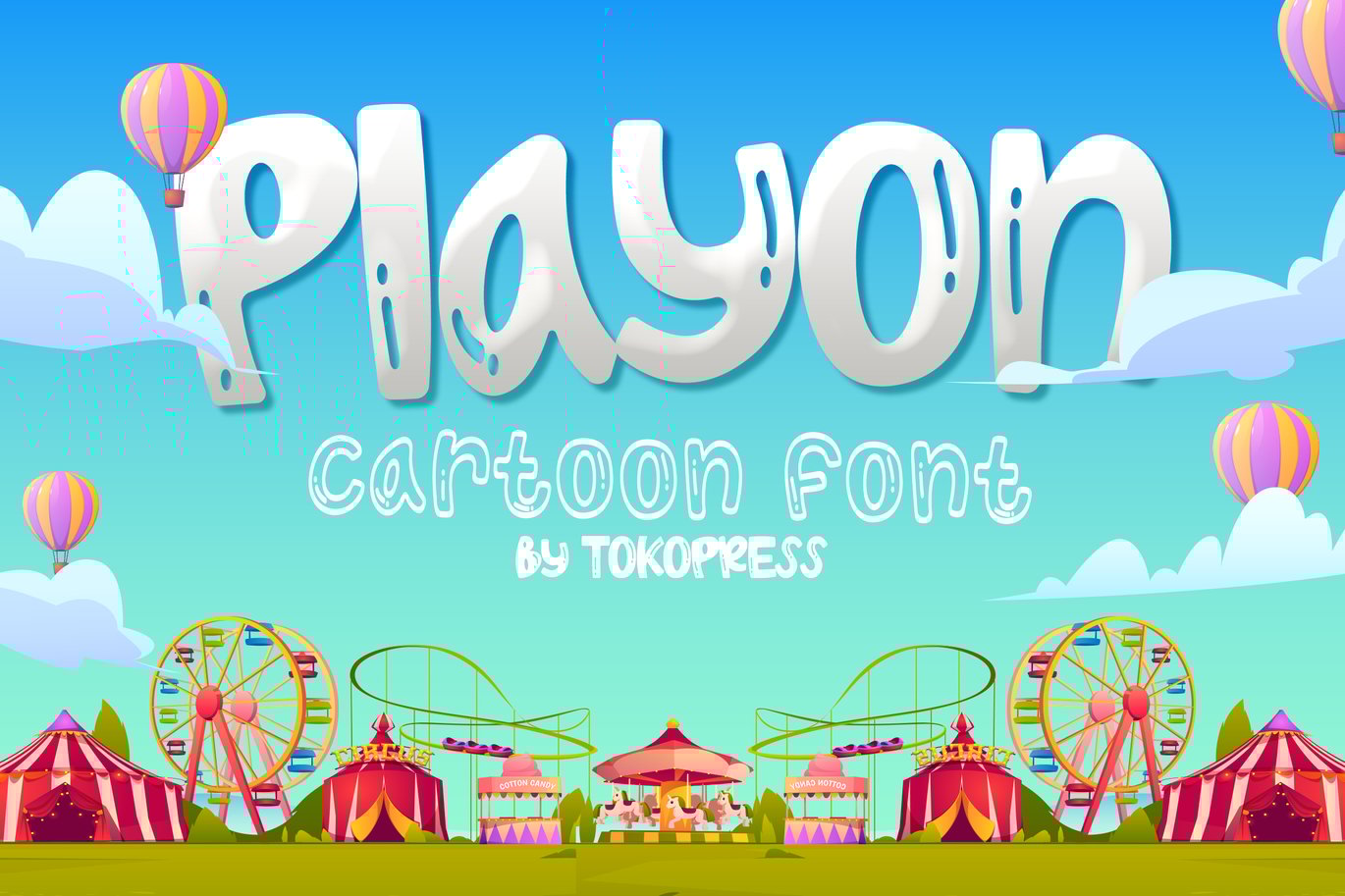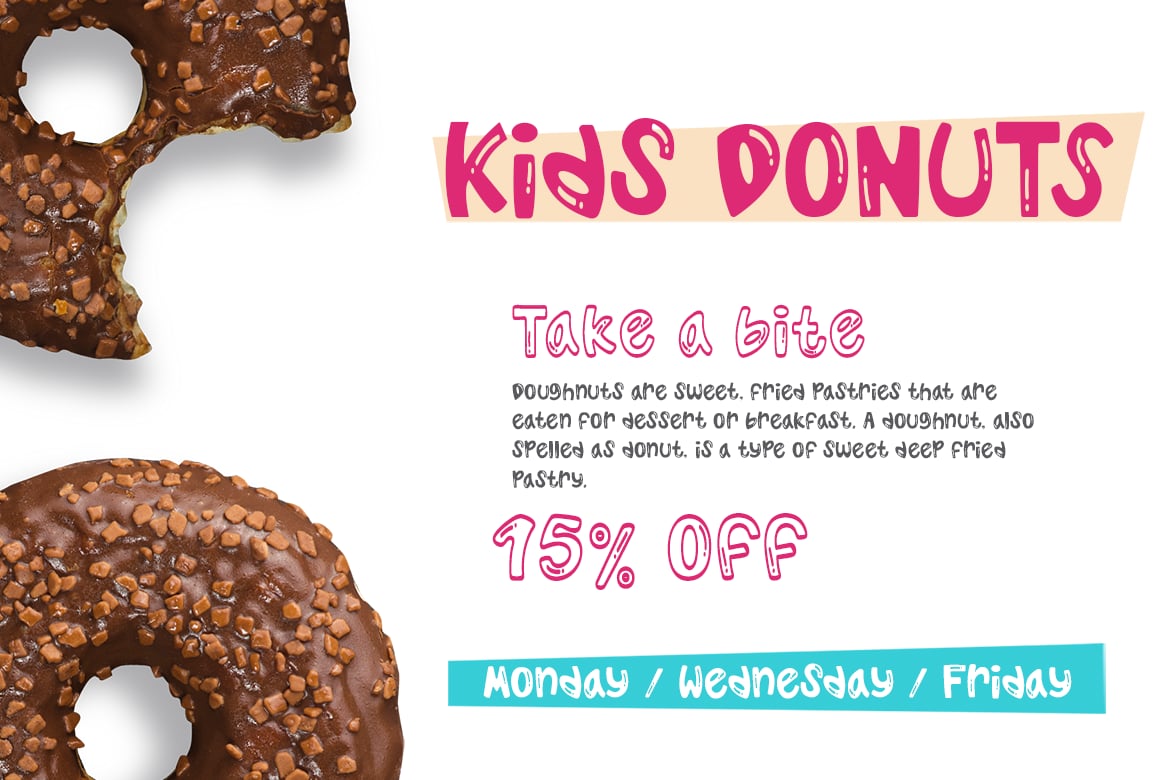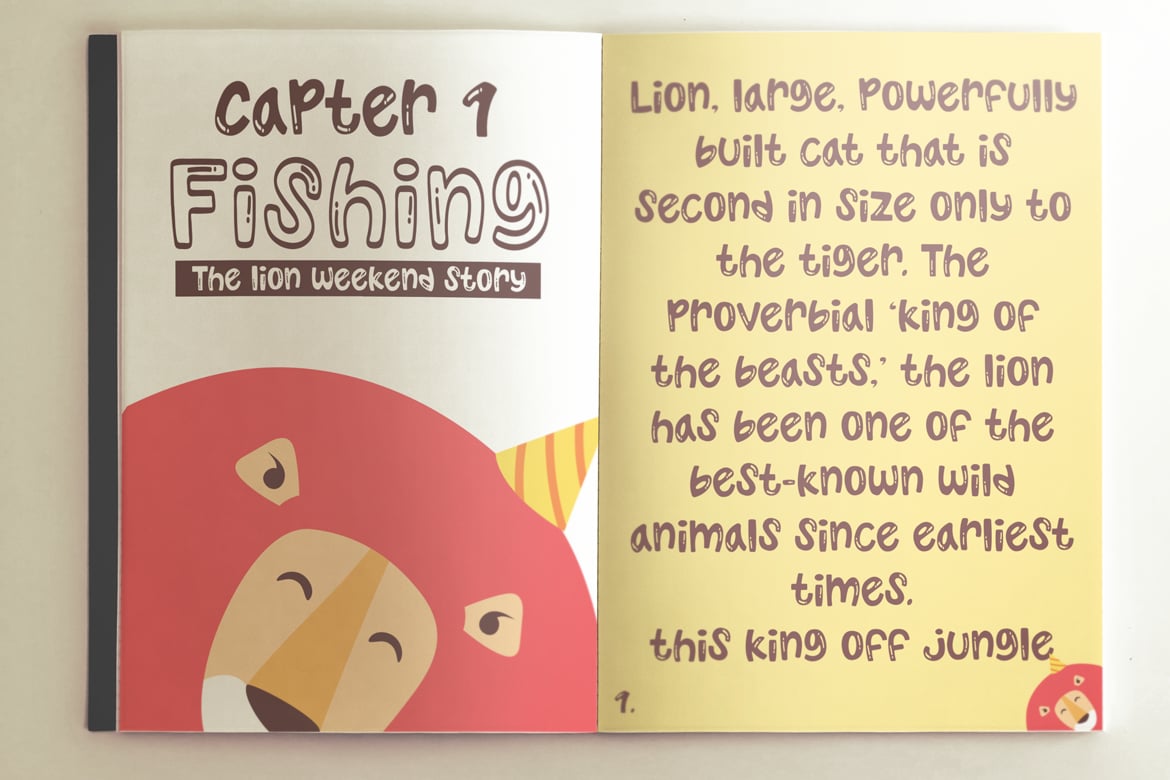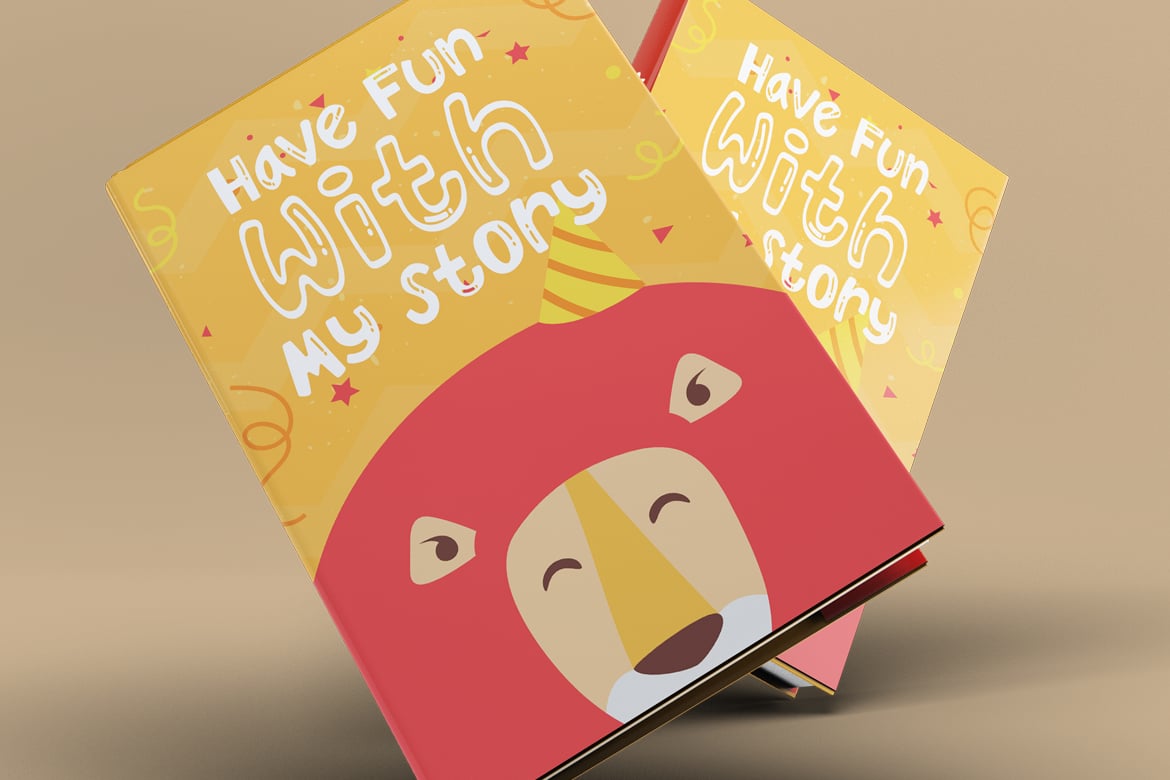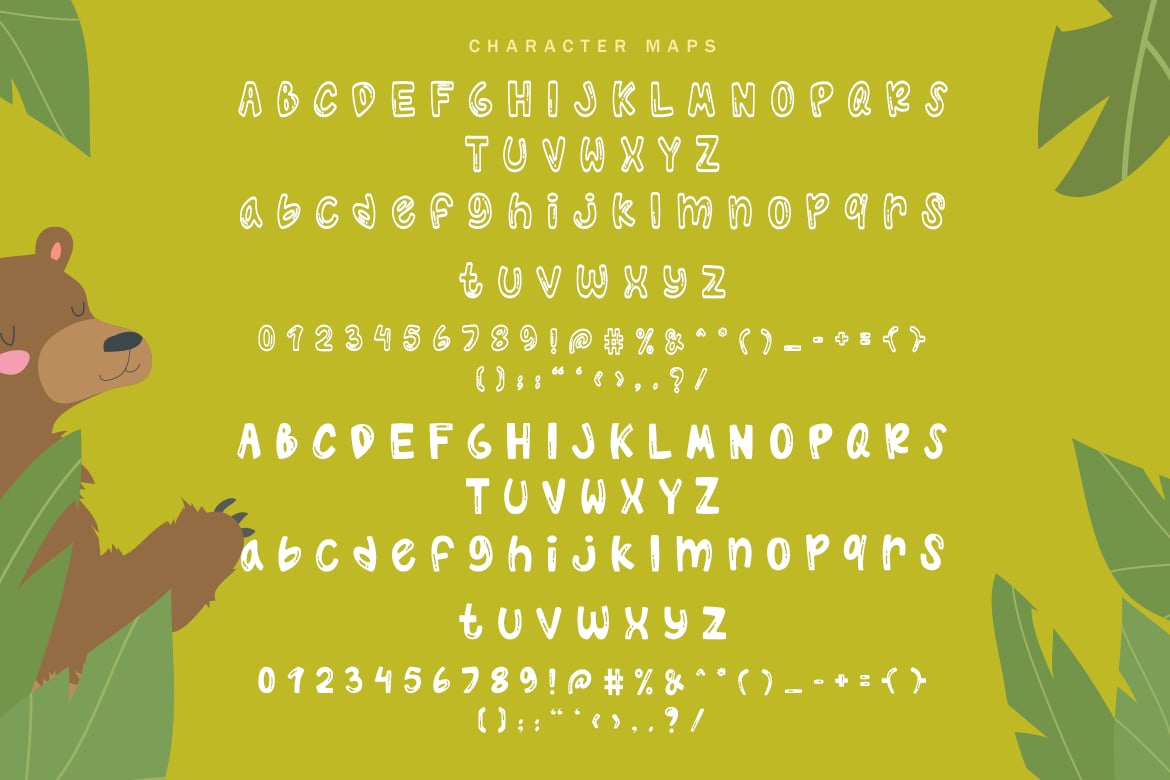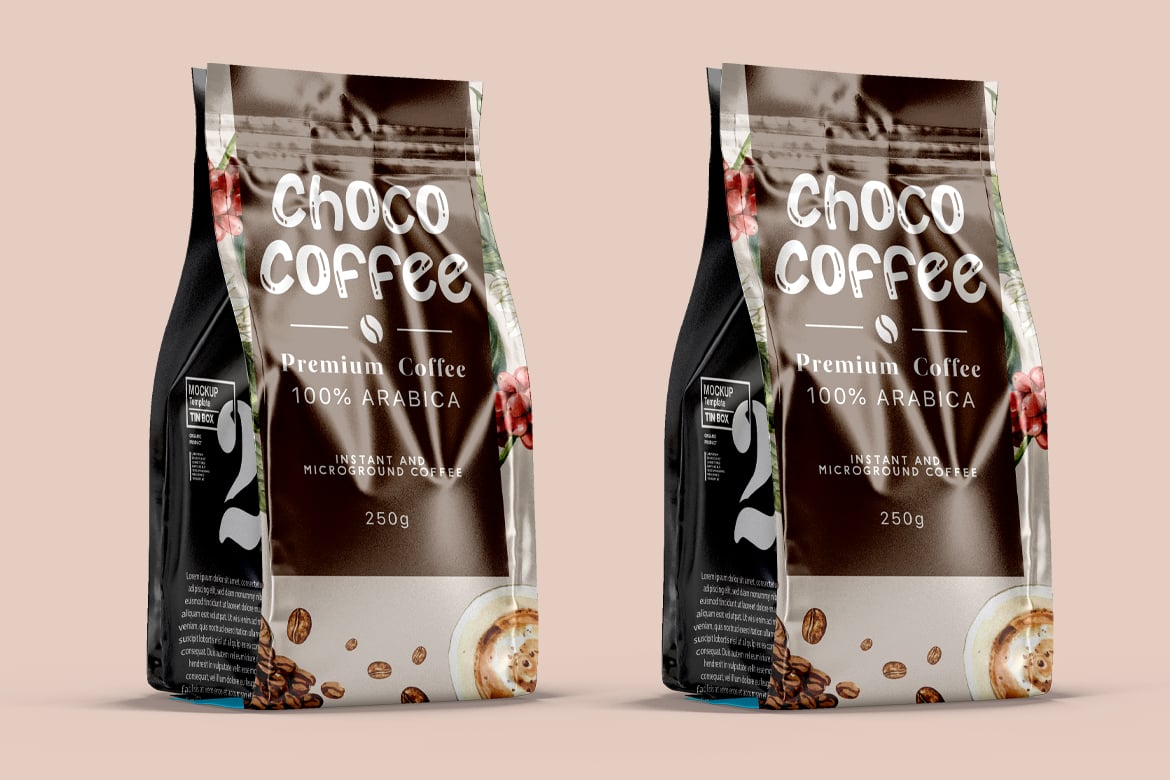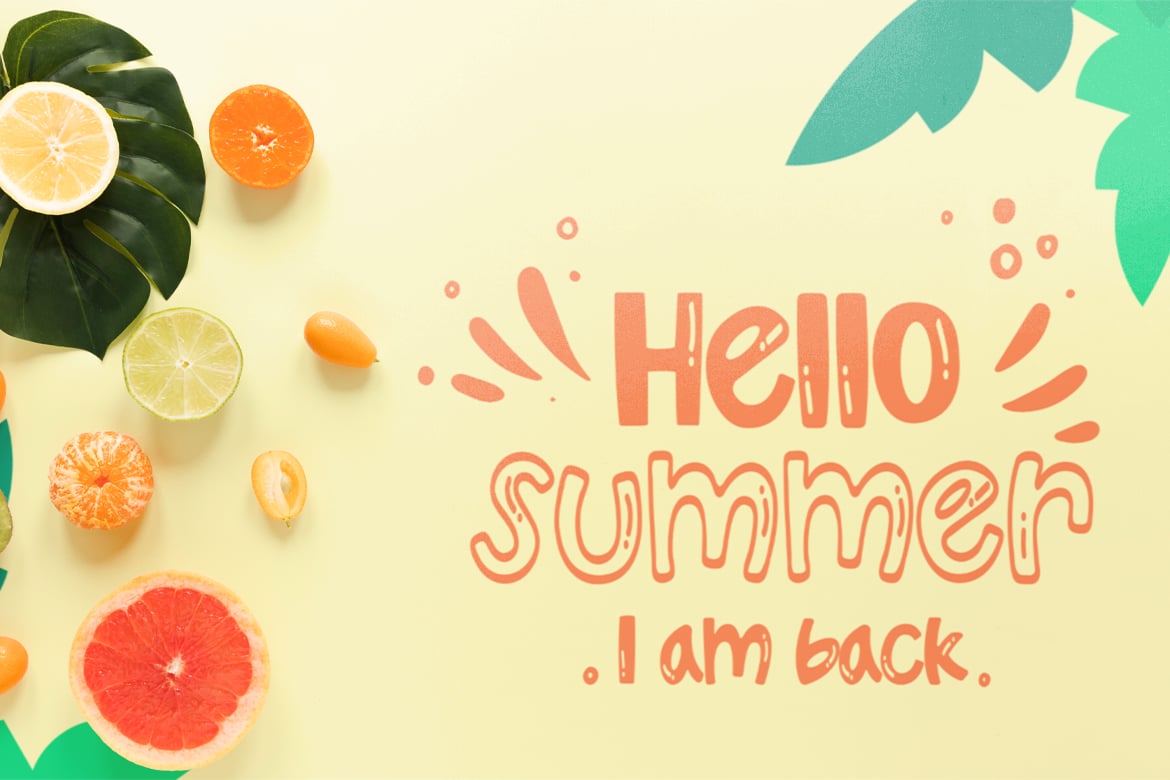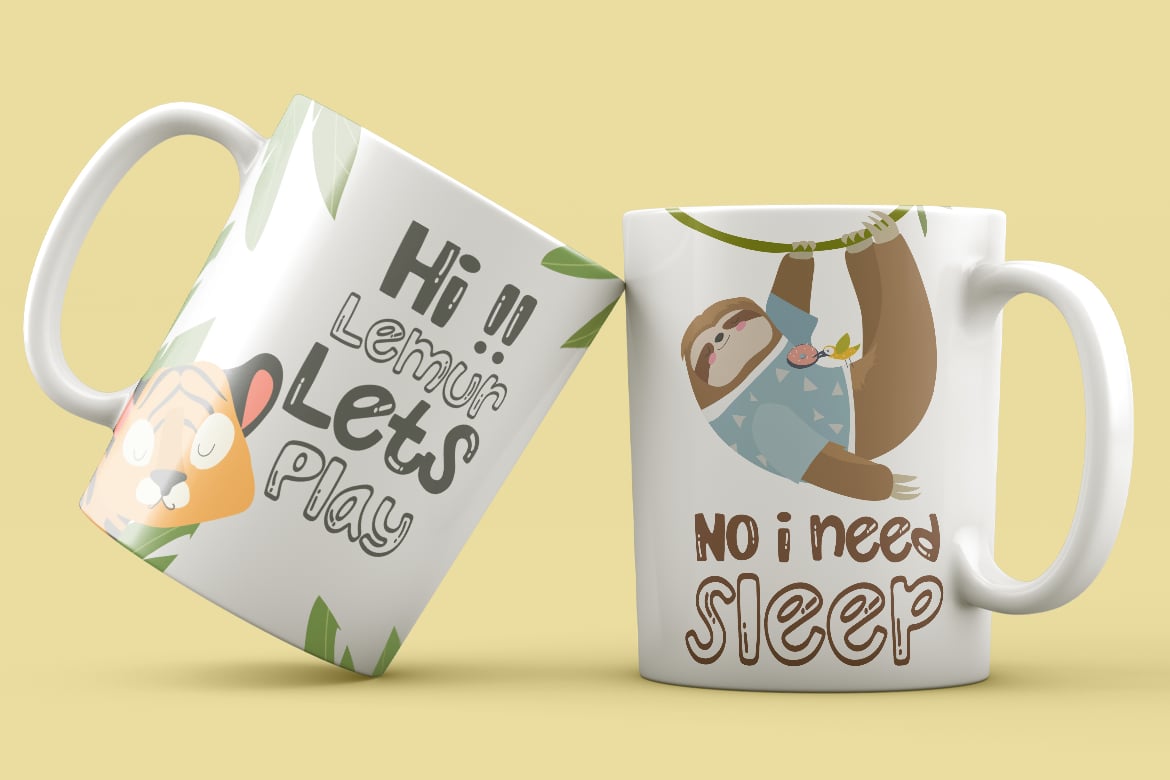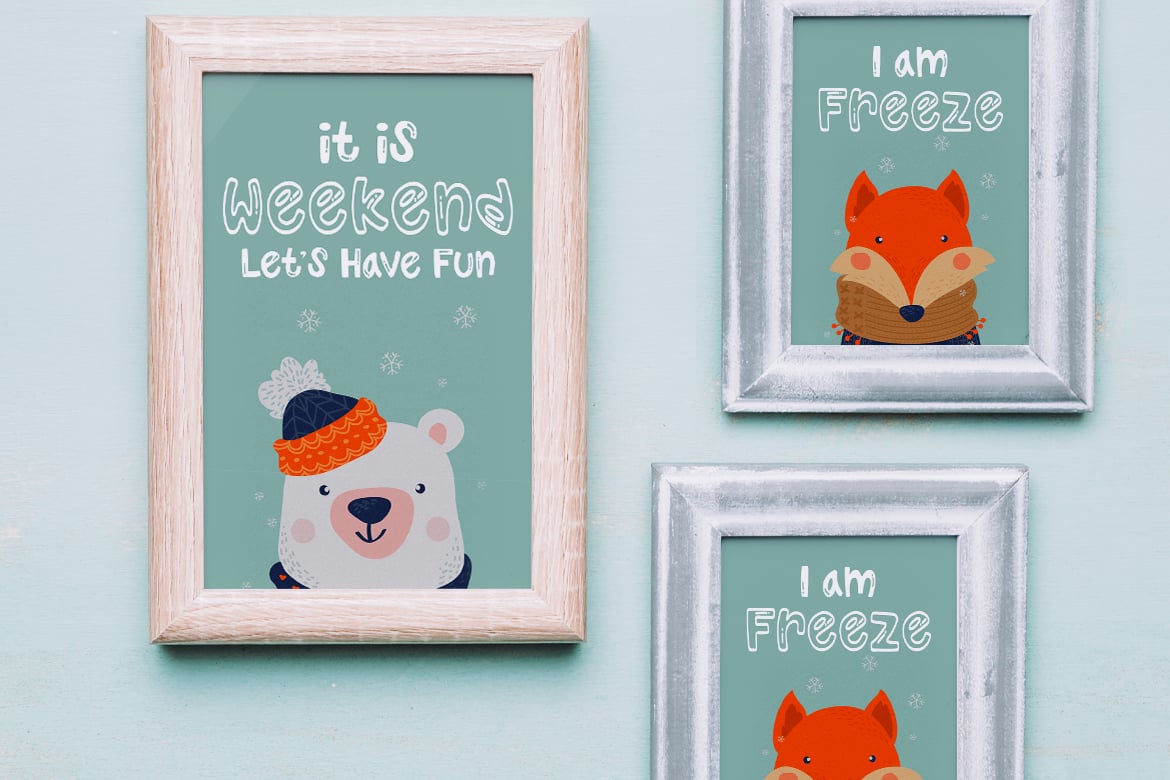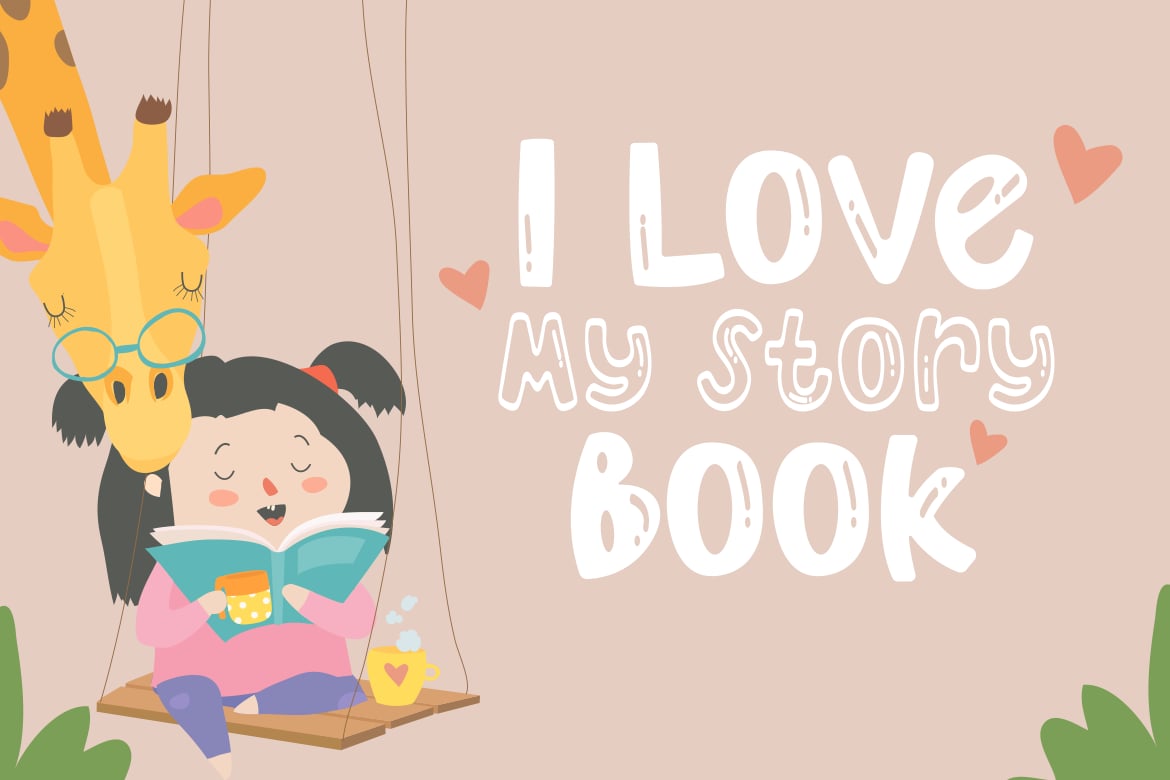
Playon – kids font
Playon – Kids font
The bouncy baseline and fancy playful sans serif shape will bring a lot of joy in kids heart.
Suit perfectly for kids market, online games, stationary, story books and school supplies font, poster, movie title, youtube covers, youtube thumbnails, social media page covers and so on…